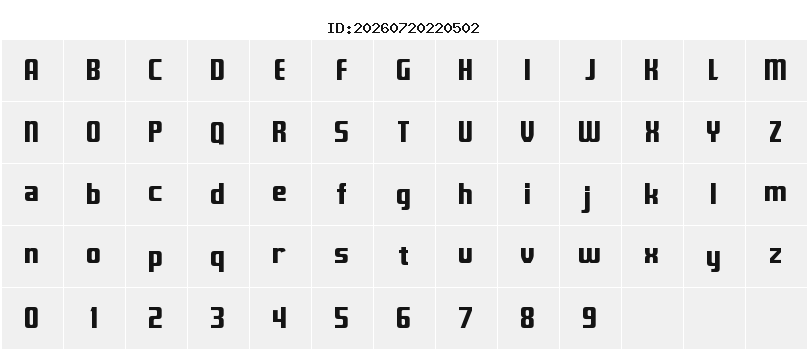
• Font Name: Fontana
• Full Font Name: Fontana
• Designer: Neale Davidson
About Fontana.ttf
Fontana.ttf is a modern, elegant sans-serif font designed for ultimate readability and visual harmony. Perfect for branding, headlines, web design, and print materials.